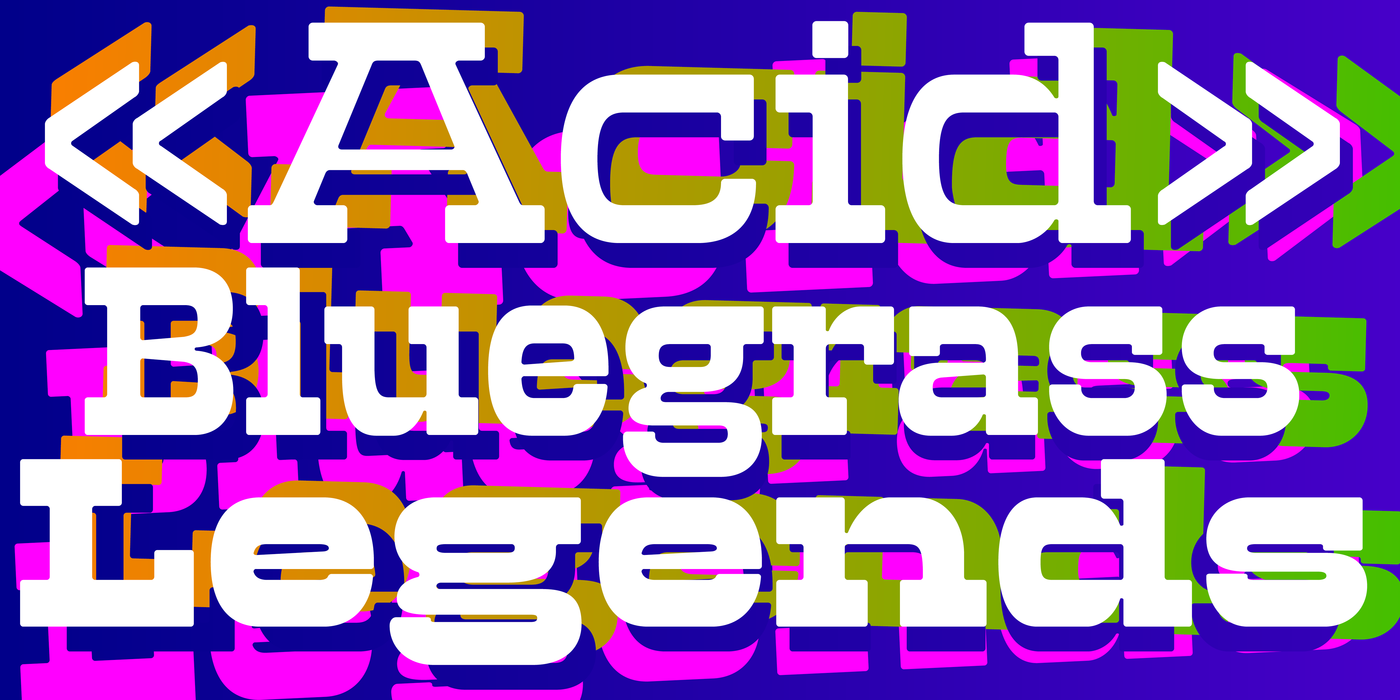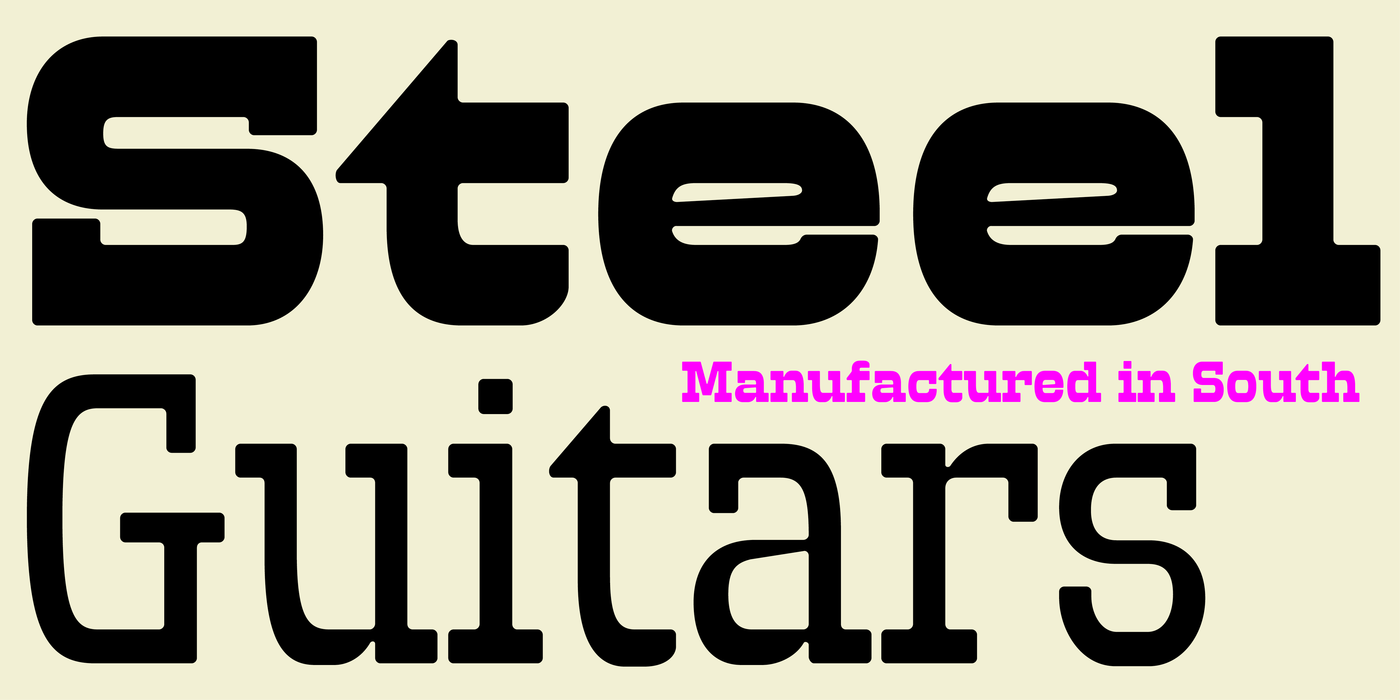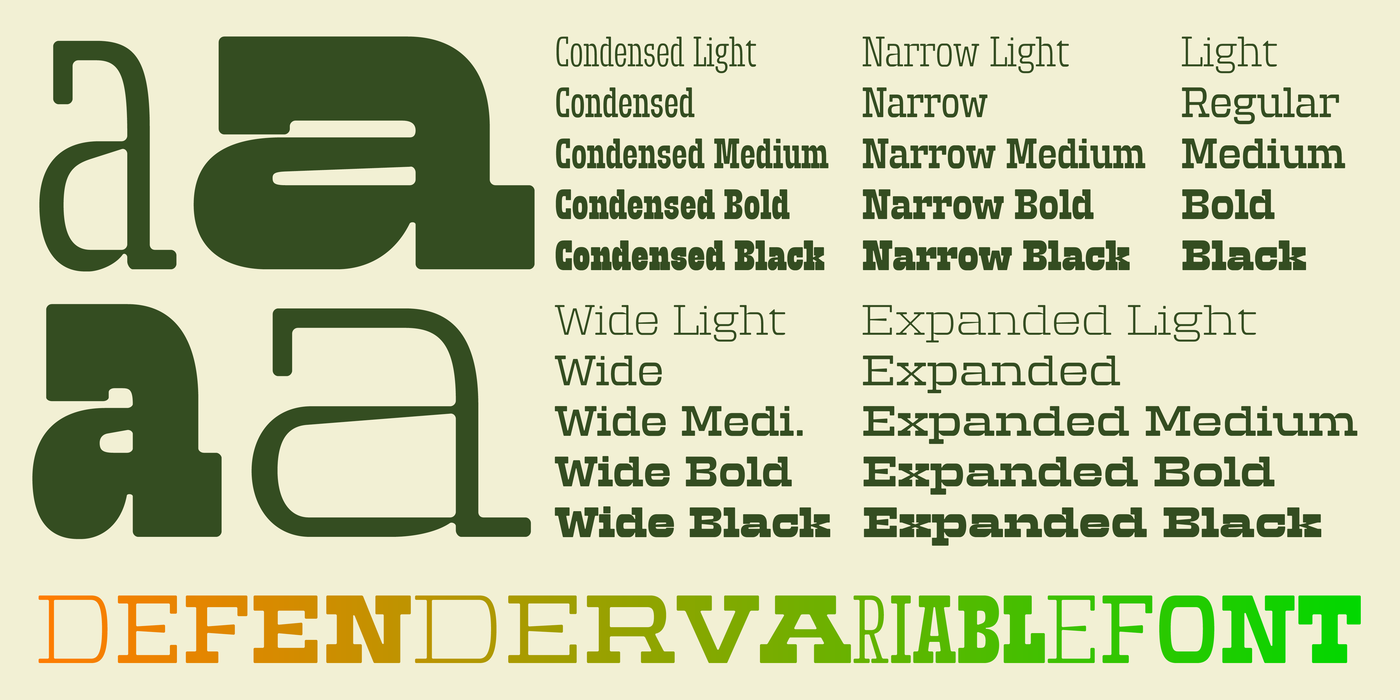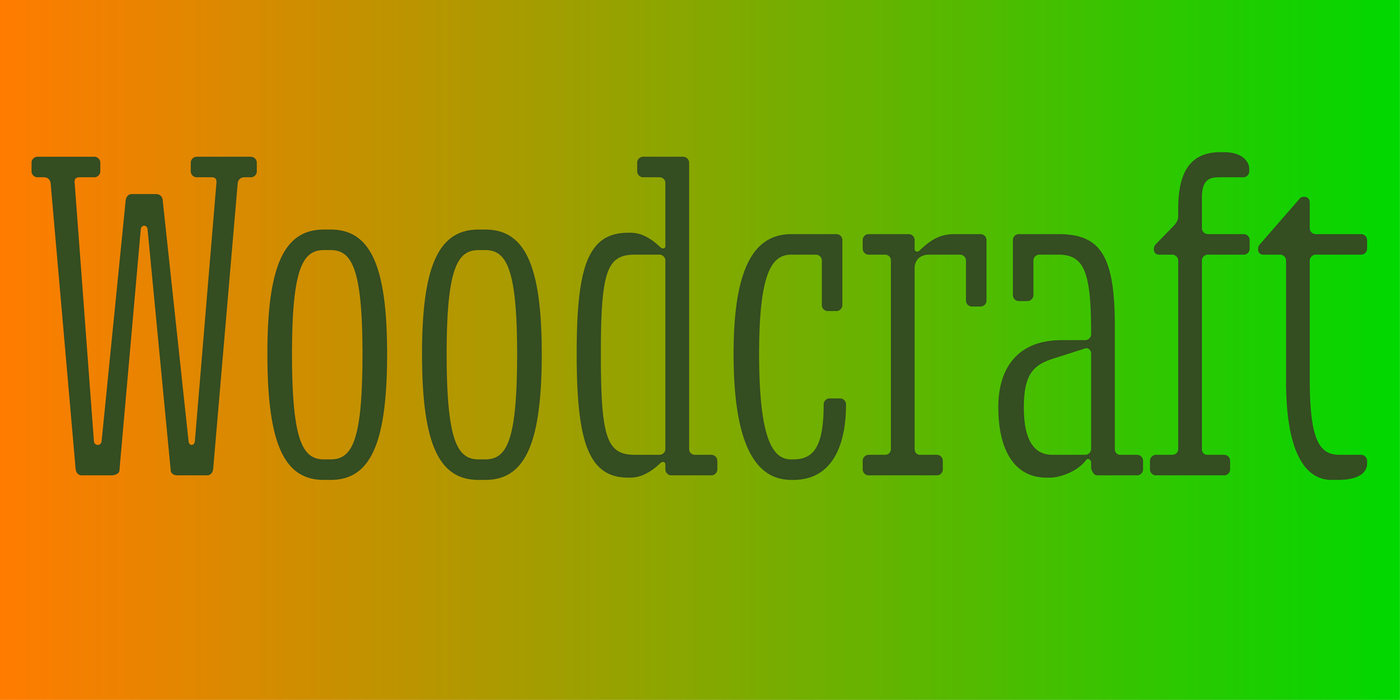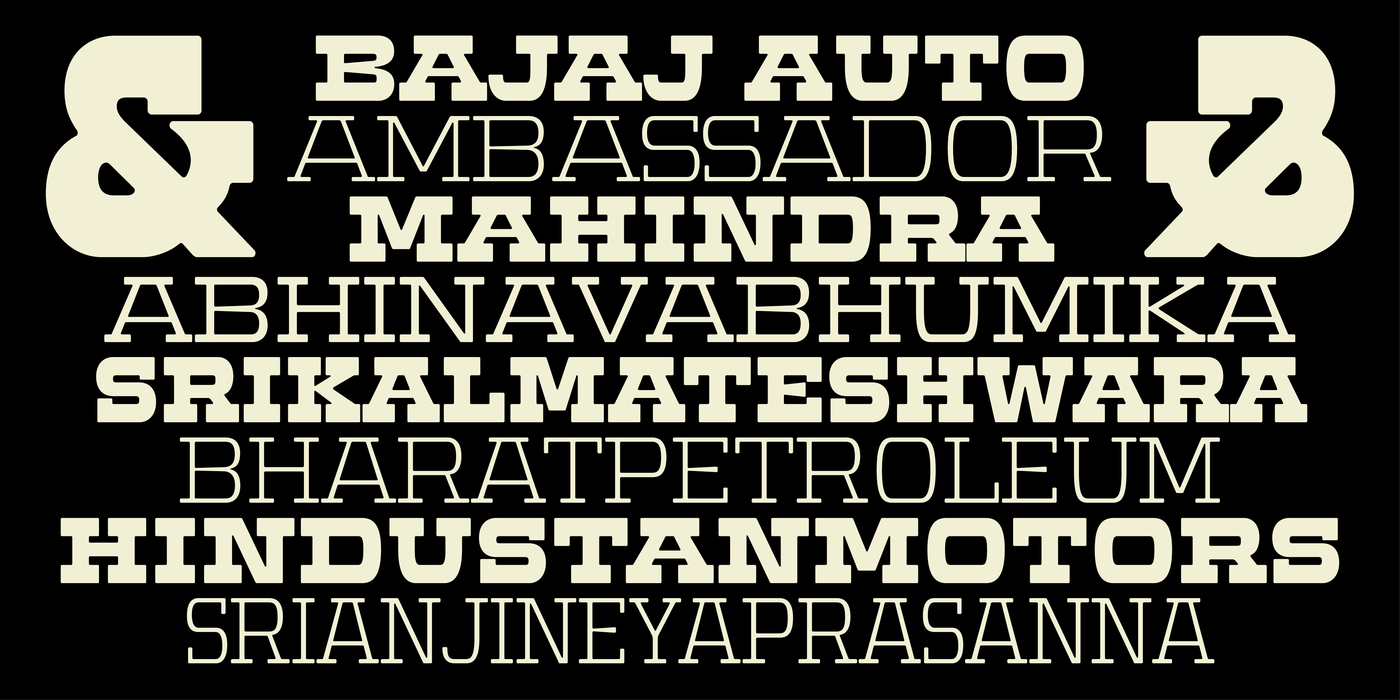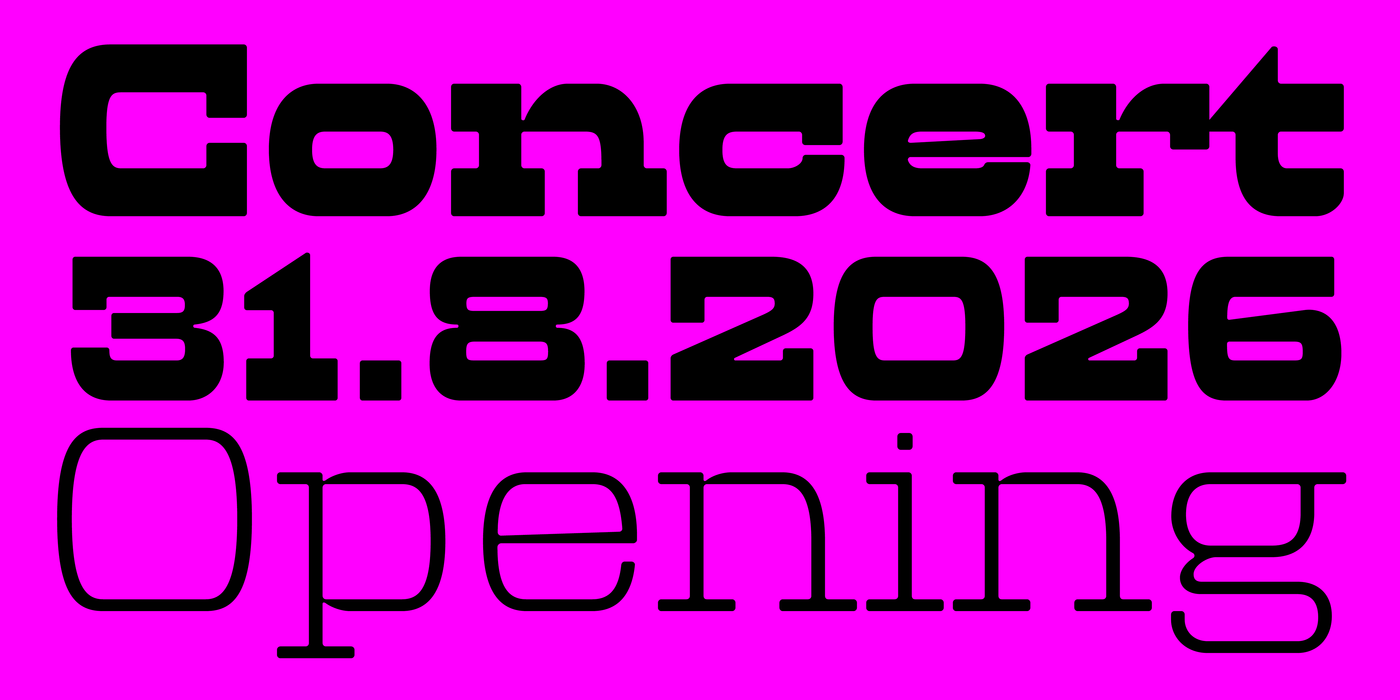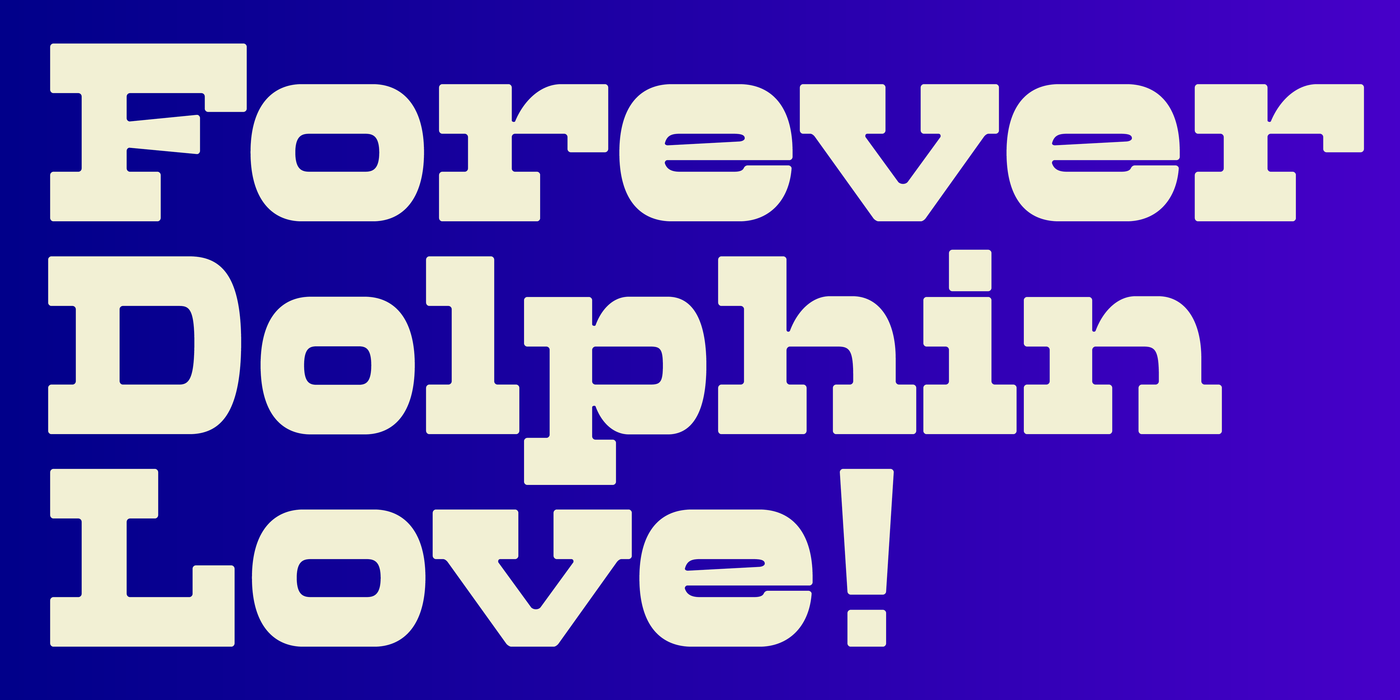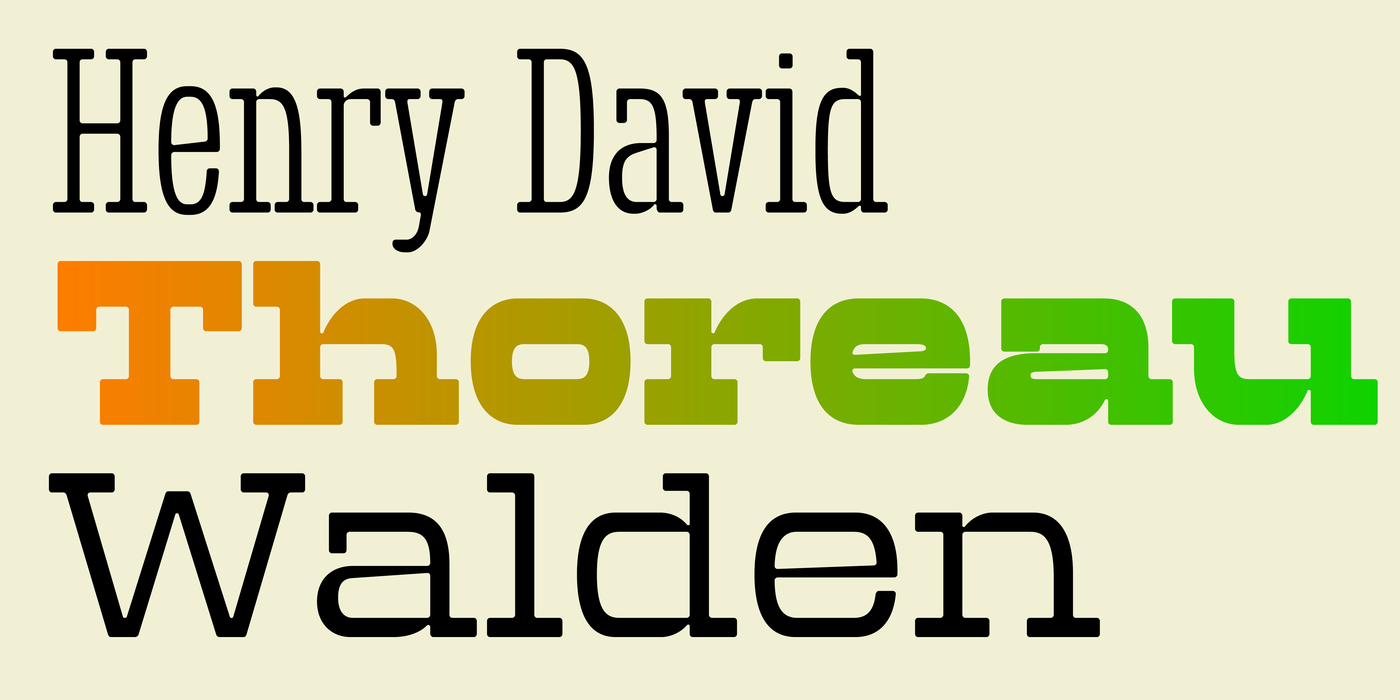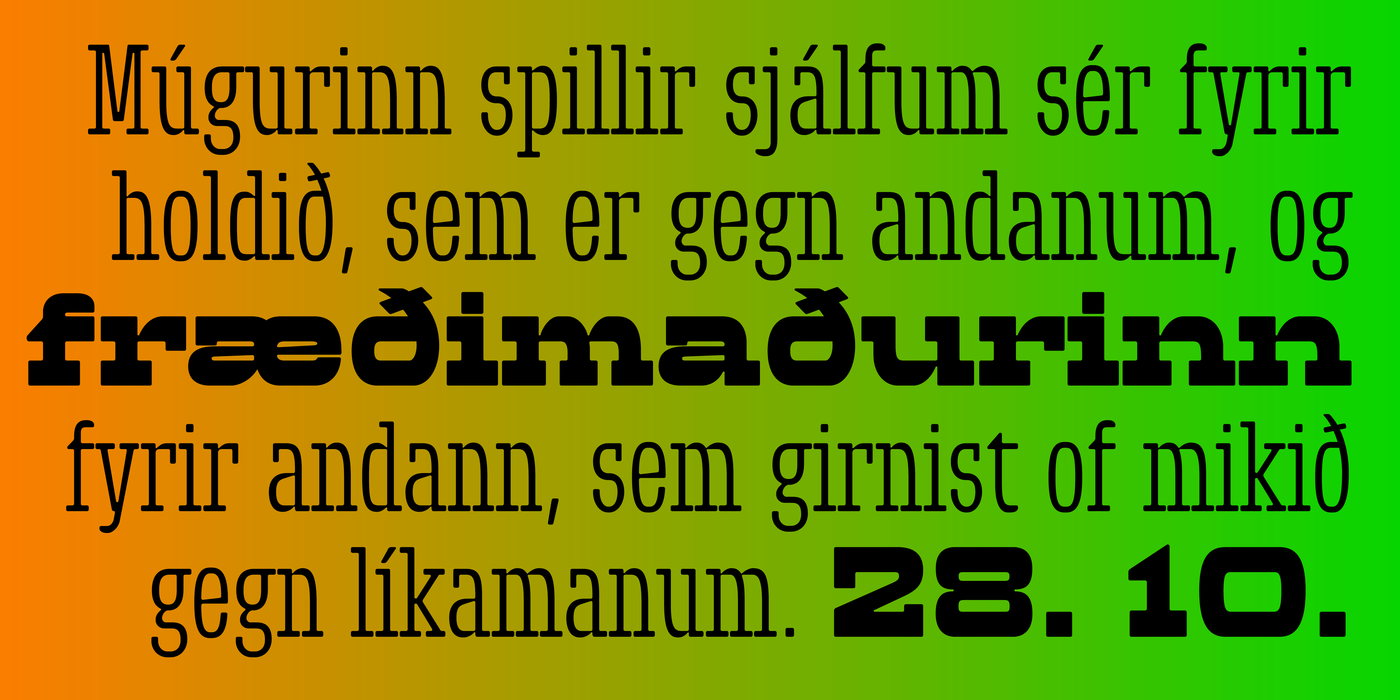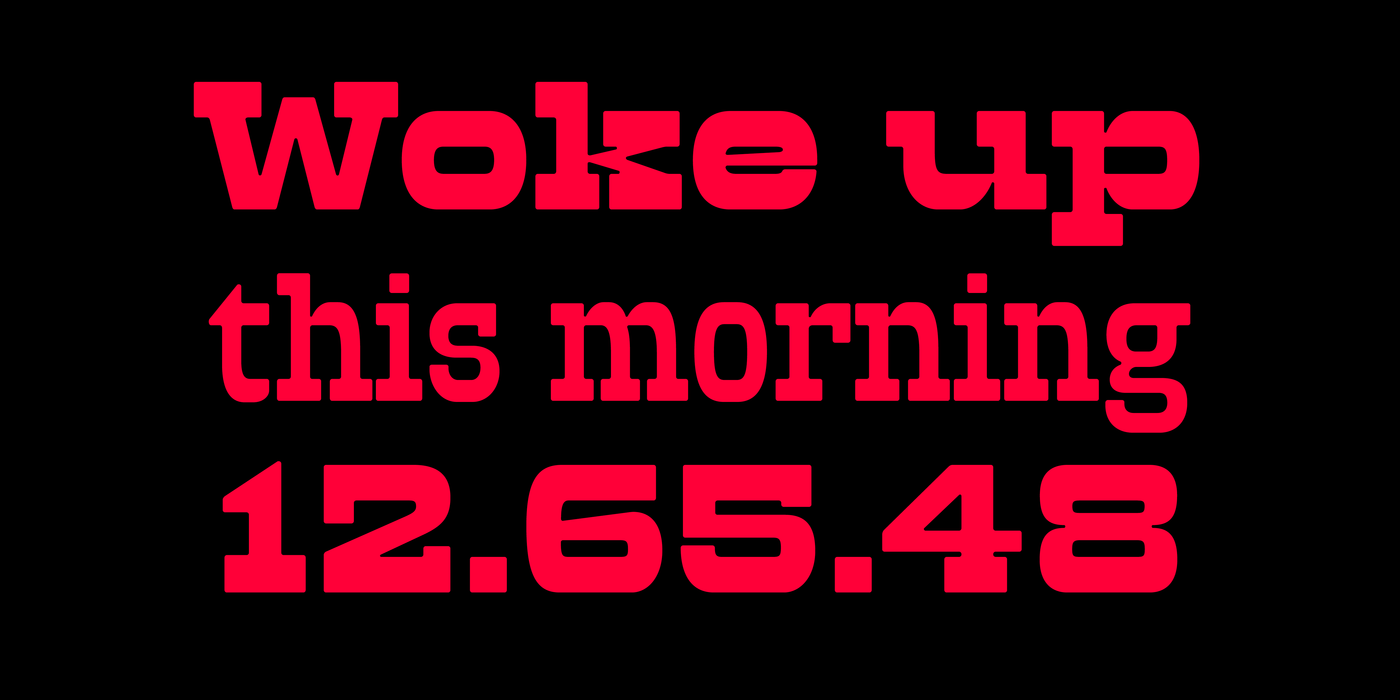
by František Štorm
Deriving the letterforms from a car’s bodywork required a certain dose of madness — the same kind needed to drive and maintain that curious vehicle. Yet the romance of staying in remote natural places endures, now on foot or by bicycle. The silence of the forest and the clean air, a copy of Thoreau in your pocket. The Defender typeface carries the spirit of bluegrass with a hint of industrial sentiment. It combines the charmingly decayed lettering of the 19th century with contemporary technology. Perfect for posters, invitations, record sleeves, as well as visual identities of all kinds. Odvodit tvary písma z karoserie auta vyžadovalo jistou dávku bláznovství, stejnou jako řídit a udržovat ono podivuhodné vozidlo. Romantika pobytů na odlehlých místech v přírodě však přetrvává, ale pěšky nebo na kole. Ticho lesa a čistý vzduch, v kapse knihu od Thoreaua. Písmo Defender má ducha bluegrassu s příchutí industriálního sentimentu. Kombinuje příjemná úpadková písma 19. století se současnou technologií. Hodí se skvěle na plakáty, pozvánky, obaly gramodesek, ale i na vizuální identitu všeho druhu.